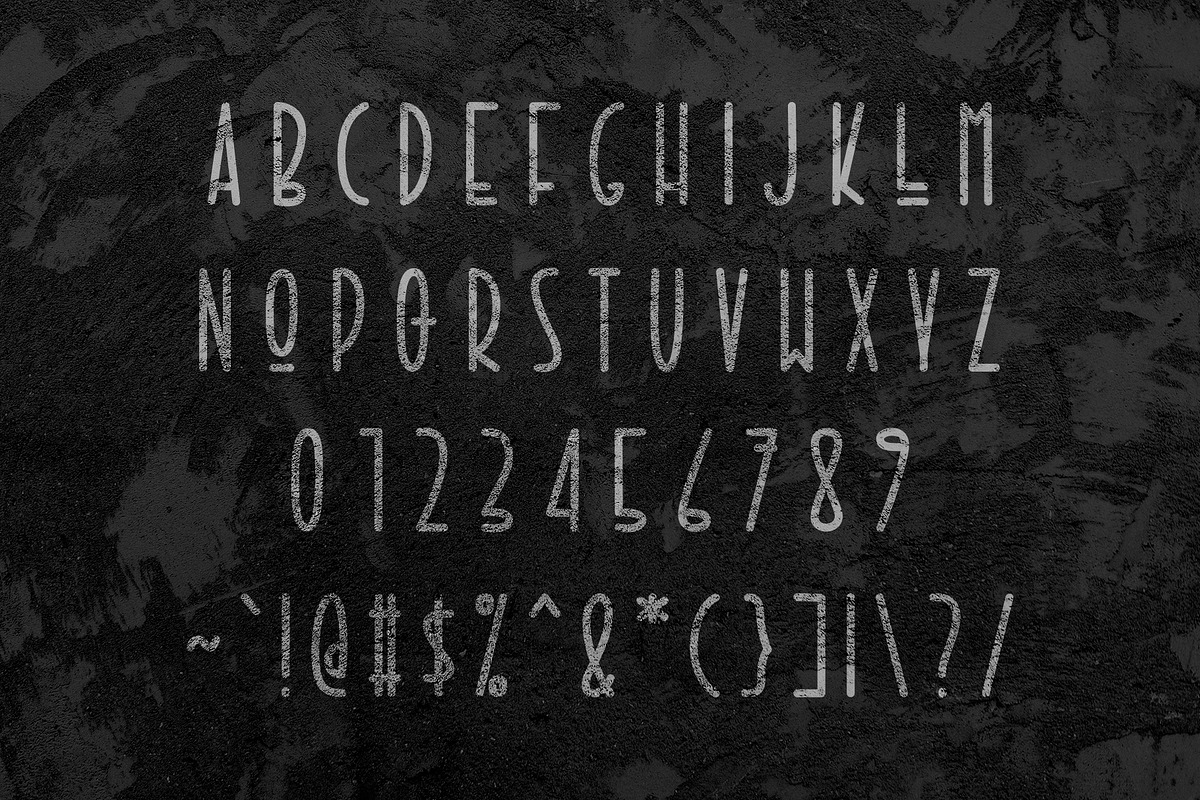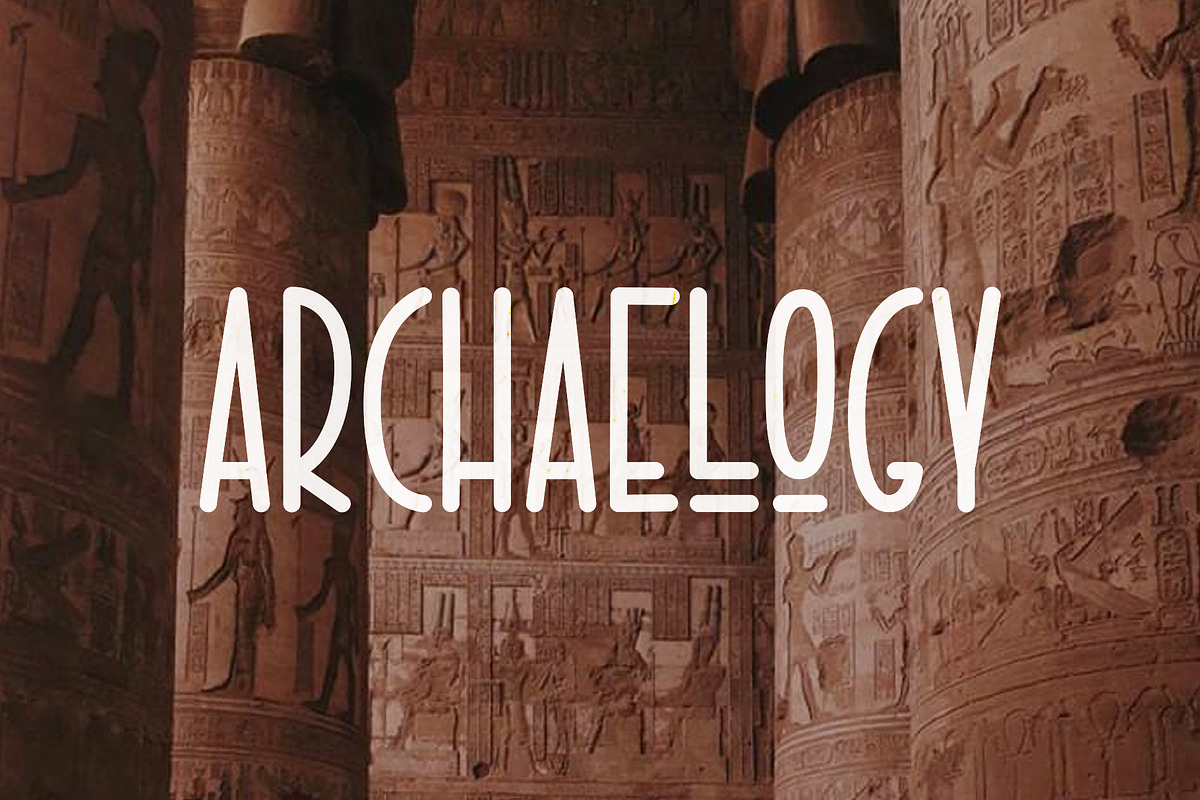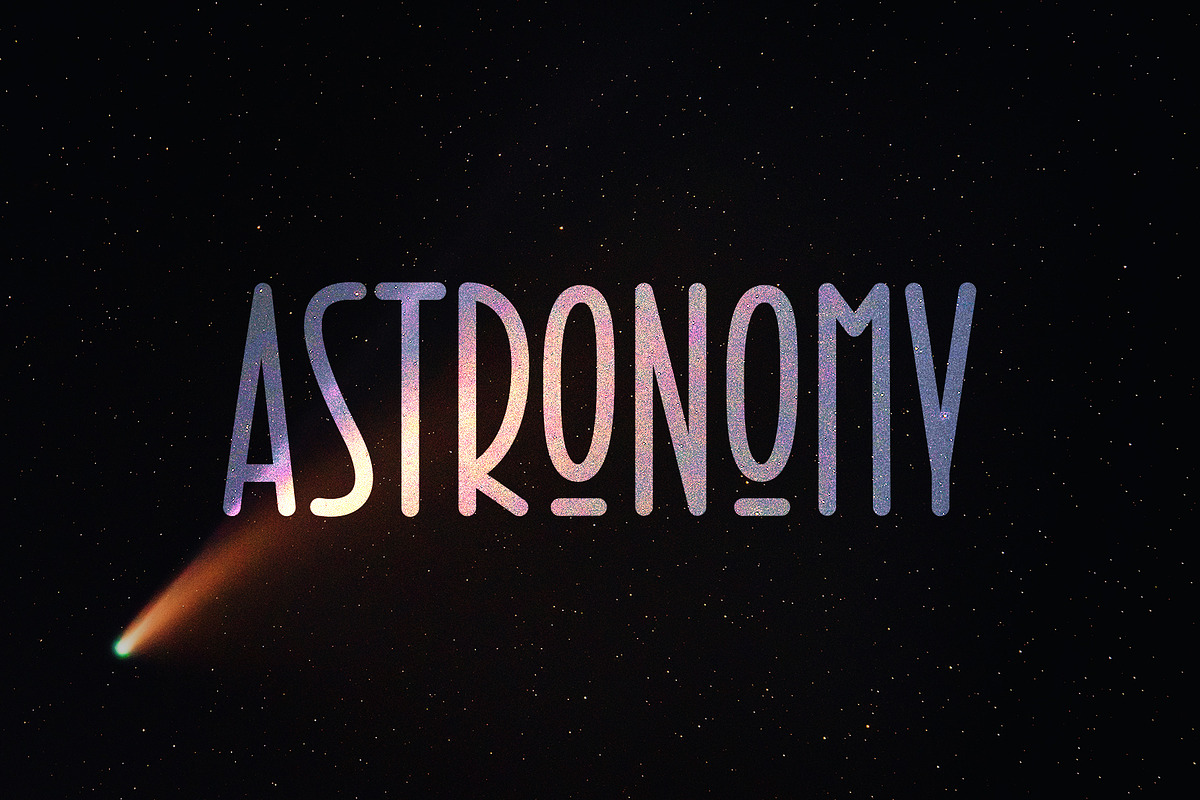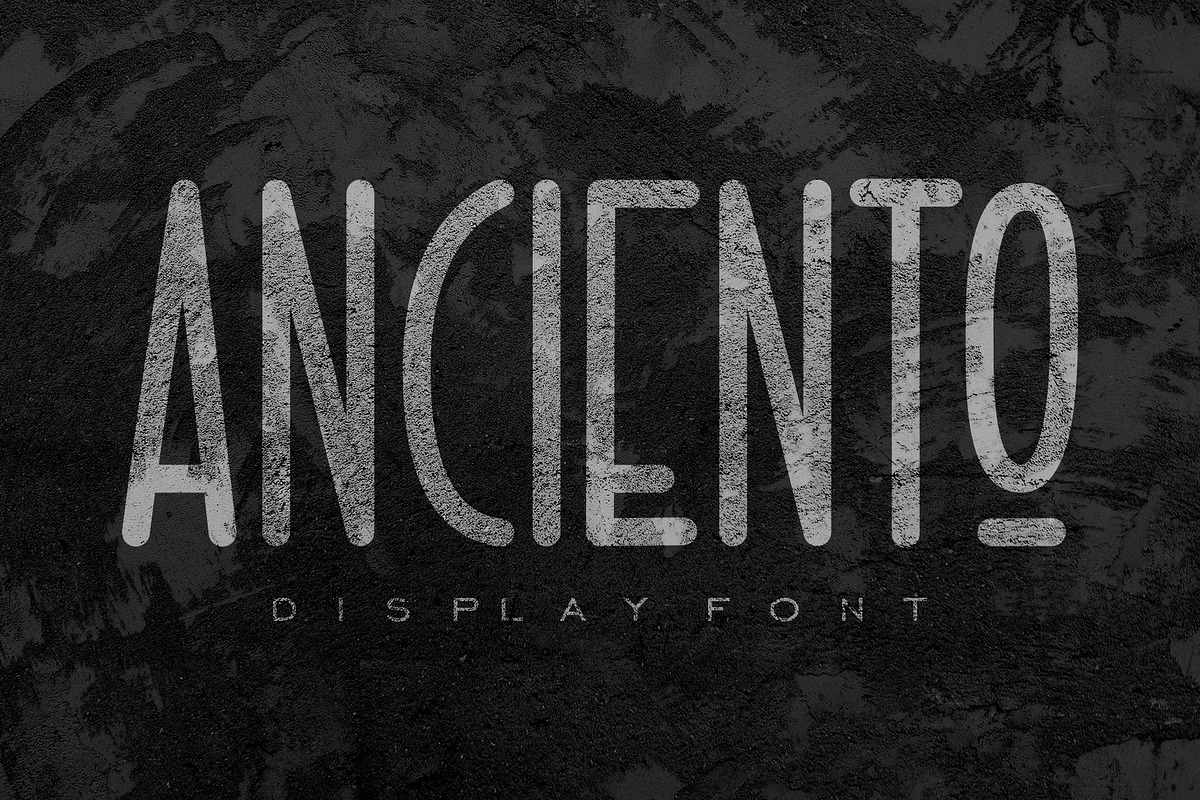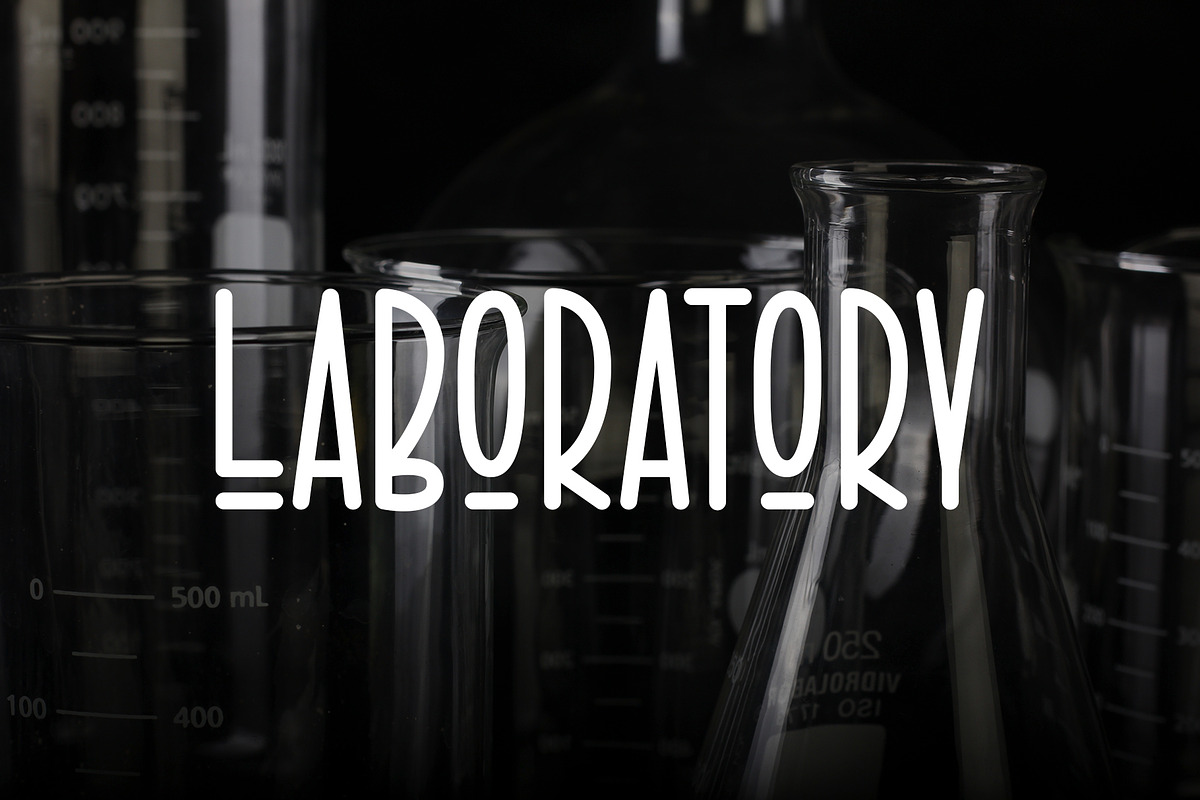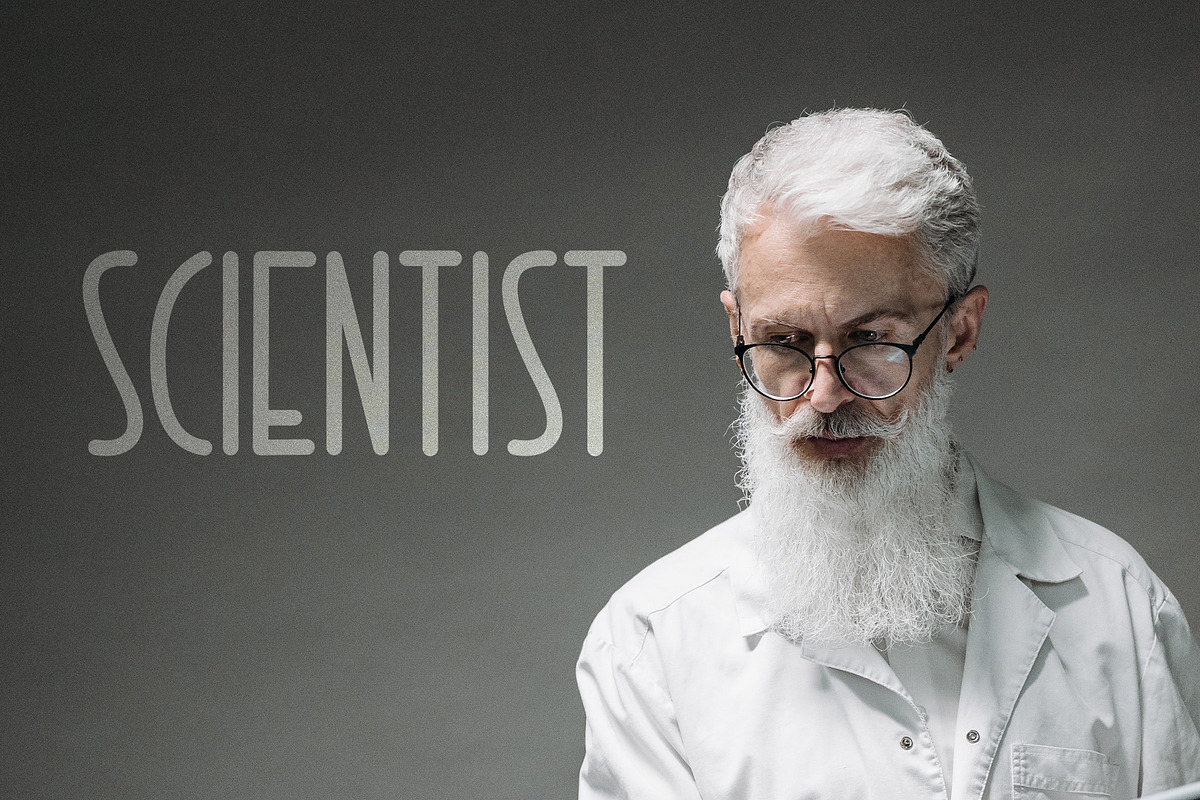
Anciento
Anciento is a display font that is ancient and full of meaning, such as written in hidden history and characters on historical walls and stones of ancient times. Very suitable for projects involving pre-historic scientists, for logos, writing suitable for t-shirt printing, film titles or other projects that require a classic and ancient touch!